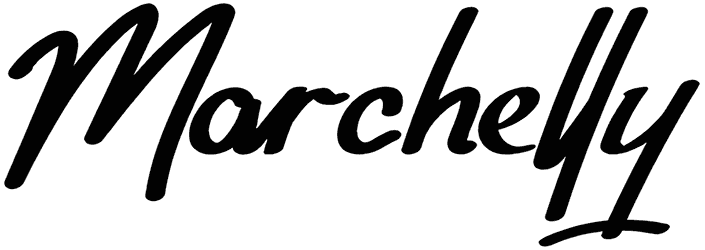
Marchelly Font
When it comes to creating a professional design, Marchelly is at the forefront of the process and can provide you with the best ways to make your ideas come true. This handwritten font has a modern and legible quality that shows off its aesthetic nature.
Using this script font, you can implement your serious projects that require close human communication in the best possible way. The appearance order and long lines in this font can bring beauty to letters, business cards, and tattoos.